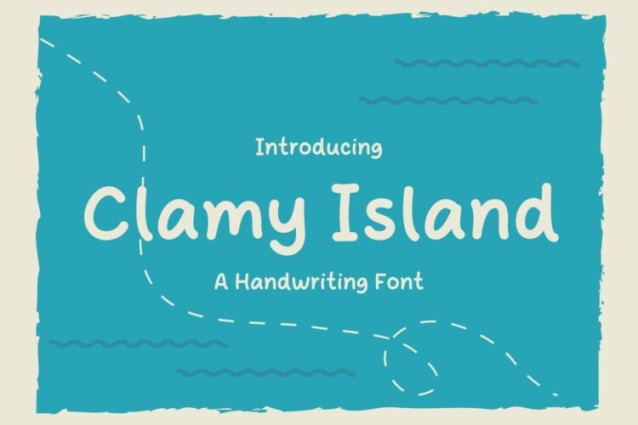
Clamy Island Font
Clamy Island Font is a simple and friendly handwritten font. Its natural and unique style makes it incredibly fitting to a large pool of designs. The only limit is your imagination!